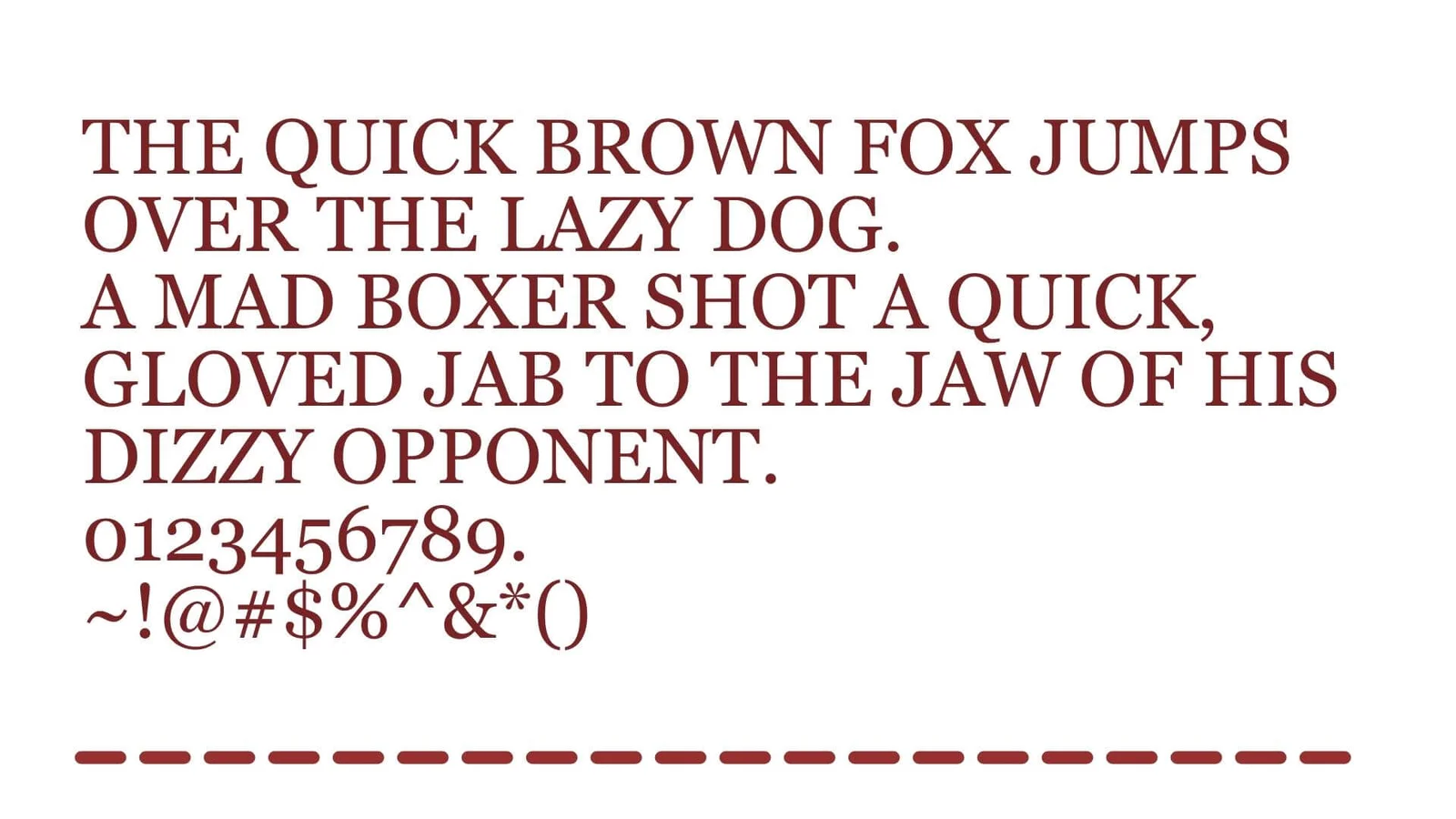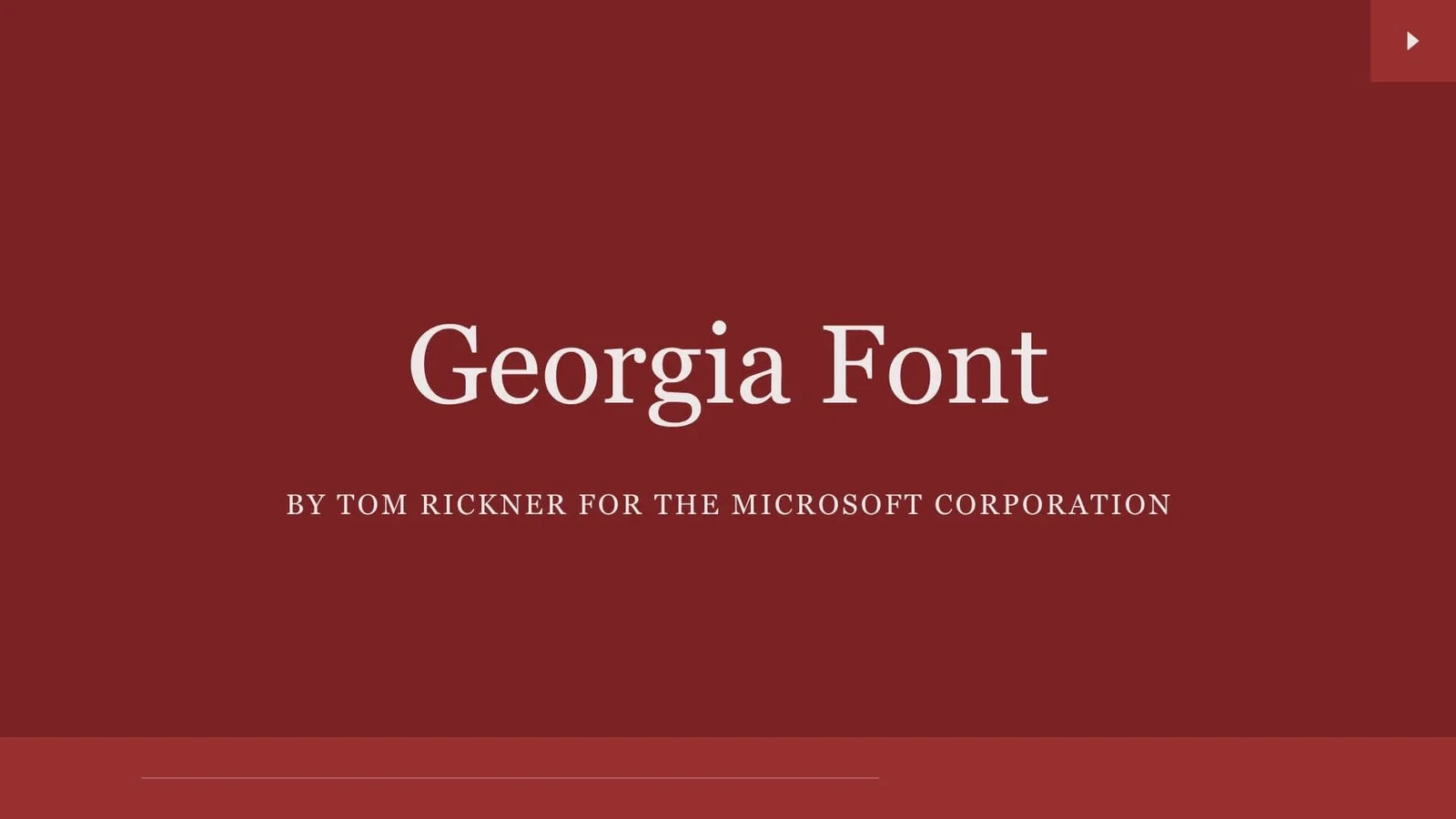
About Georgia Font
Optimized serif for screen readability
Font Features
- High-quality serif design
- Perfect for screen applications
- Excellent character coverage
- Versatile and professional